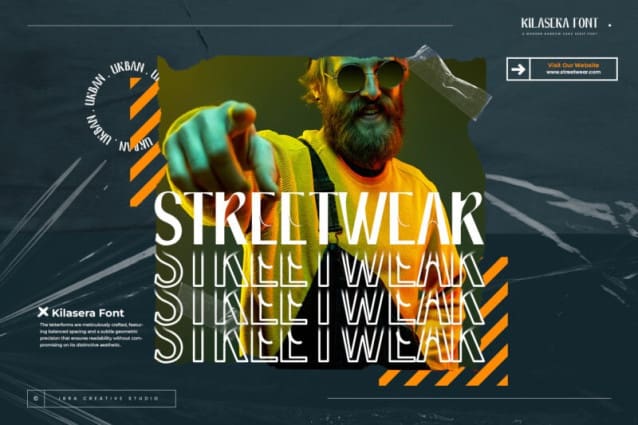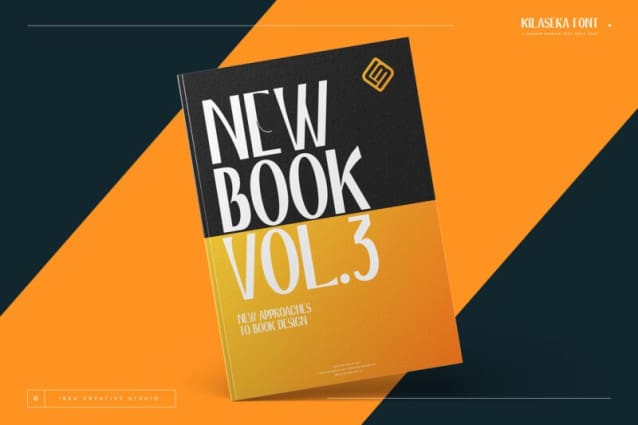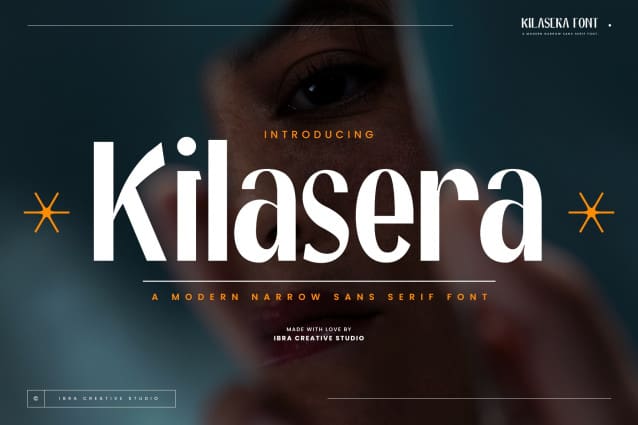
Kilasera Font
Kilasera Font is a contemporary narrow sans-serif font that effortlessly blends sophistication with modernity. Exhibiting clean lines and minimalistic design elements, Kilasera exudes a sense of sleekness and versatility. With its slender proportions, the font is well-suited for a wide range of applications, from editorial layouts to digital interfaces. The letterforms are meticulously crafted, featuring balanced spacing and a subtle geometric precision that ensures readability without compromising on its distinctive aesthetic. Kilasera’s sleek and timeless appeal makes it an ideal choice for projects seeking a refined, contemporary typographic style that seamlessly integrates into the visual language of the present day.